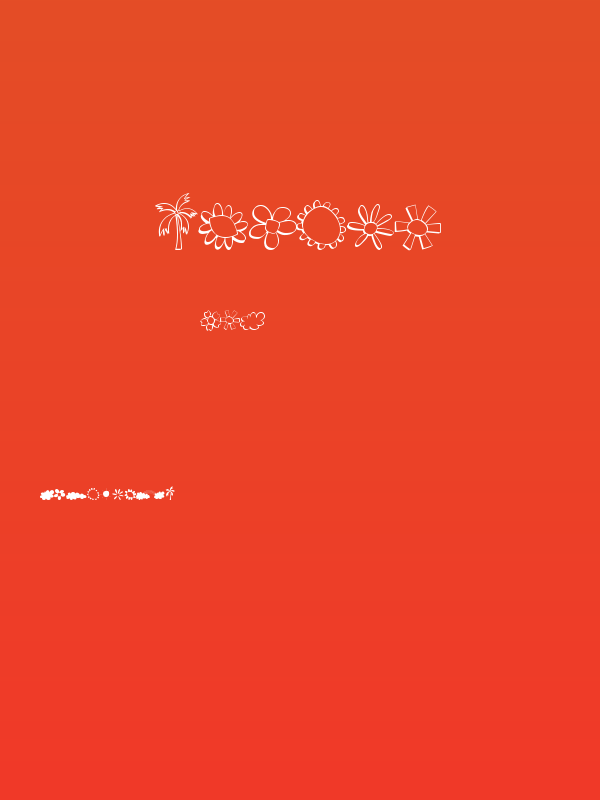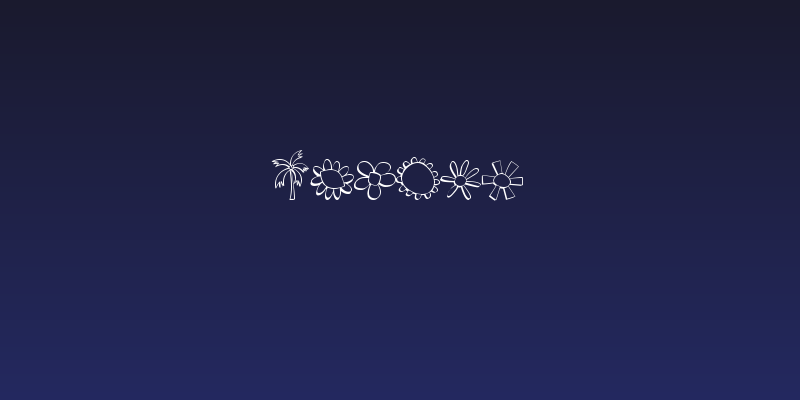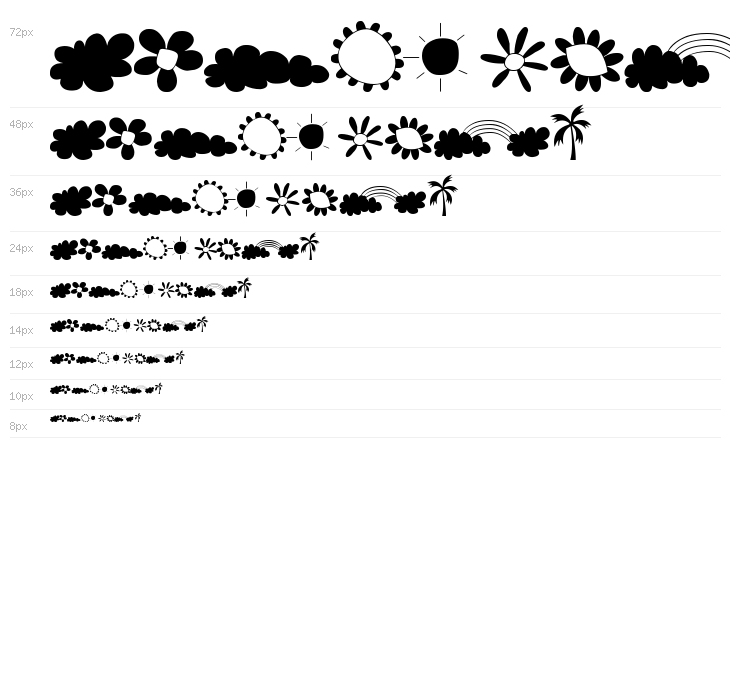
MTF Vecbat Vo1 Font
MTF Vecbat Vo1 Description
A decorative dingbat set featuring playful illustrations of flowers, clouds, rainbows, sun, raindrops, and a palm tree, presented in both outlined and filled styles.
| Overall Style | Decorative, Playful |
| Use Case | Borders, Decorative elements, Themed graphics |
| Proposed Projects | Scrapbooking, children's invitations, seasonal posters, decorative borders, playful branding. |